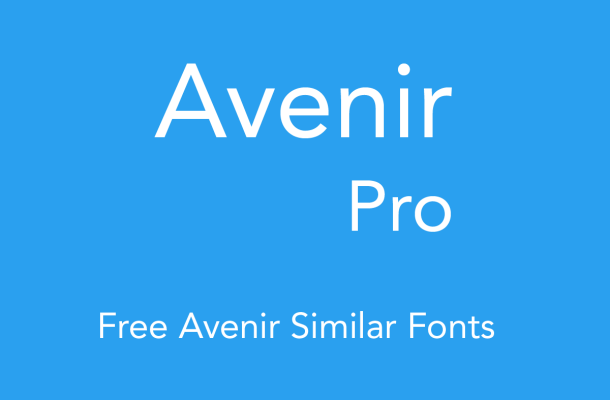
Avenir Alternatives Font Free
Adrian Frutiger designed Avenir in 1988, after years of having an interest in sans serif typefaces. In an interview with Linotype, he said he felt an obligation to design a linear sans in the tradition of Erbar and Futura, but to also make use of the experience and stylistic developments of the twentieth century.
The word Avenir means “future” in French and hints that the typeface owes some of its interpretation to Futura. But unlike Futura , Avenir is not purely geometric; it has vertical strokes that are thicker than the horizontals, an “o” that is not a perfect circle, and shortened ascenders. These nuances aid in legibility and give Avenir a harmonious and sensible appearance for both texts and headlines.
Brown Rosemary Font
OCR-B Sans Serif Font
Neptune Font
Gio Font
Neutro Font
Angela’s Handwriting Font
Lamborgini Font Family
Intro Condensed Font
Fitanova Font